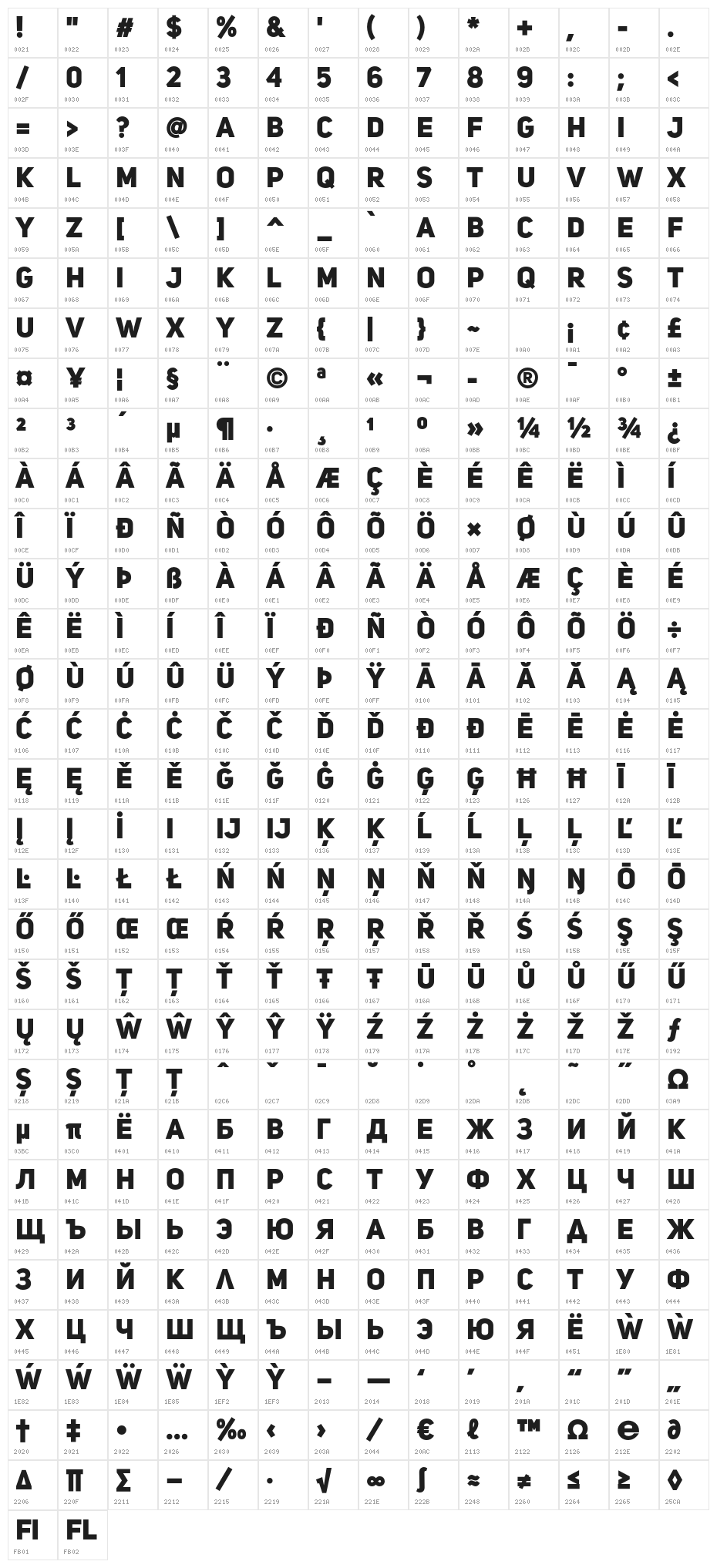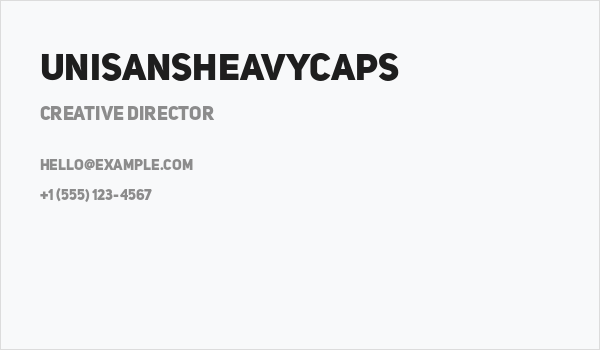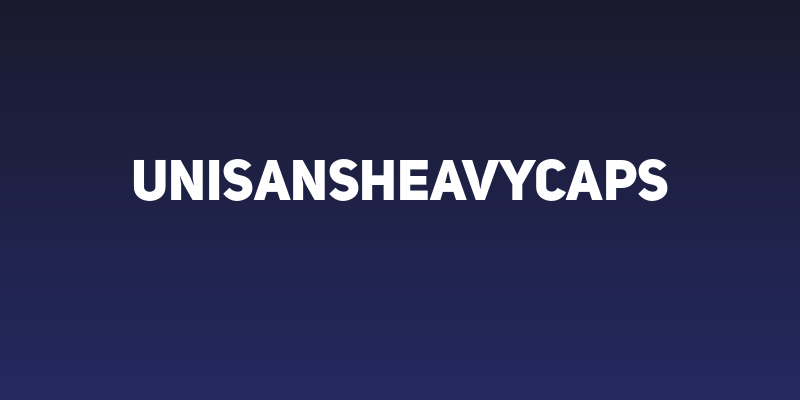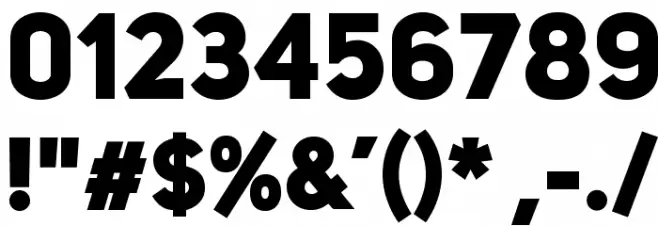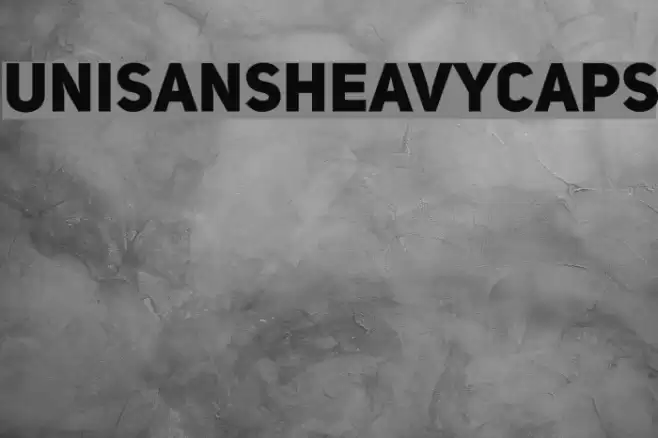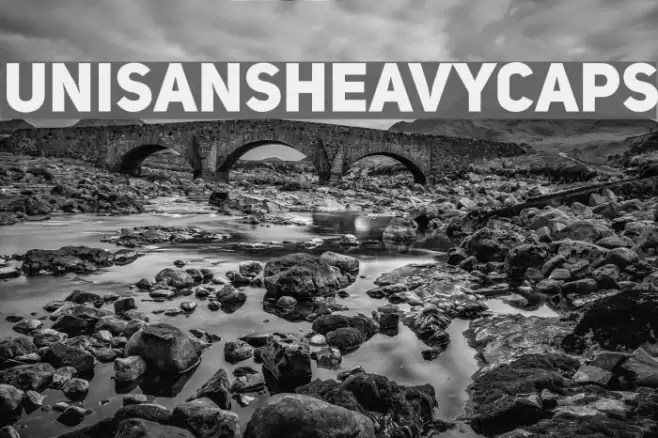
UniSansHeavyCAPS Font
UniSansHeavyCAPS Description
This font is a bold, sans-serif typeface characterized by its heavy weight and strong presence. The letters are uniformly thick, providing a robust and impactful appearance. The uppercase letters are prominent and assertive, making them suitable for attention-grabbing headlines. The numbers are equally bold, ensuring consistency across different types of content. Special characters are designed with the same boldness, maintaining the overall aesthetic. The font's clean lines and lack of serifs give it a modern and professional look, ideal for contemporary design projects.
| Proposed Projects | Ideal for branding, advertising, posters, and any design requiring a bold statement. |